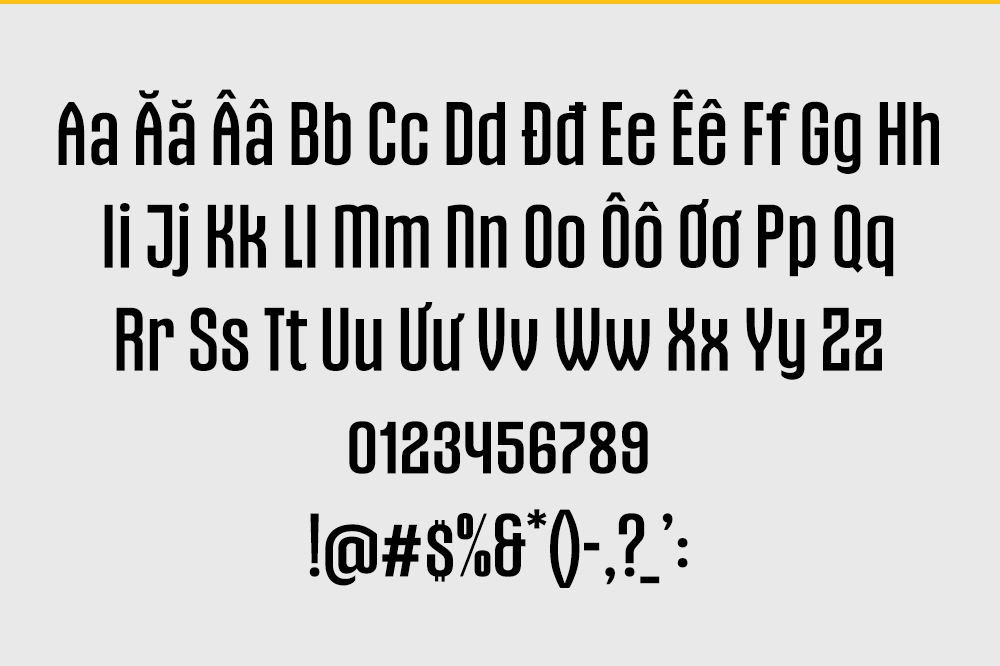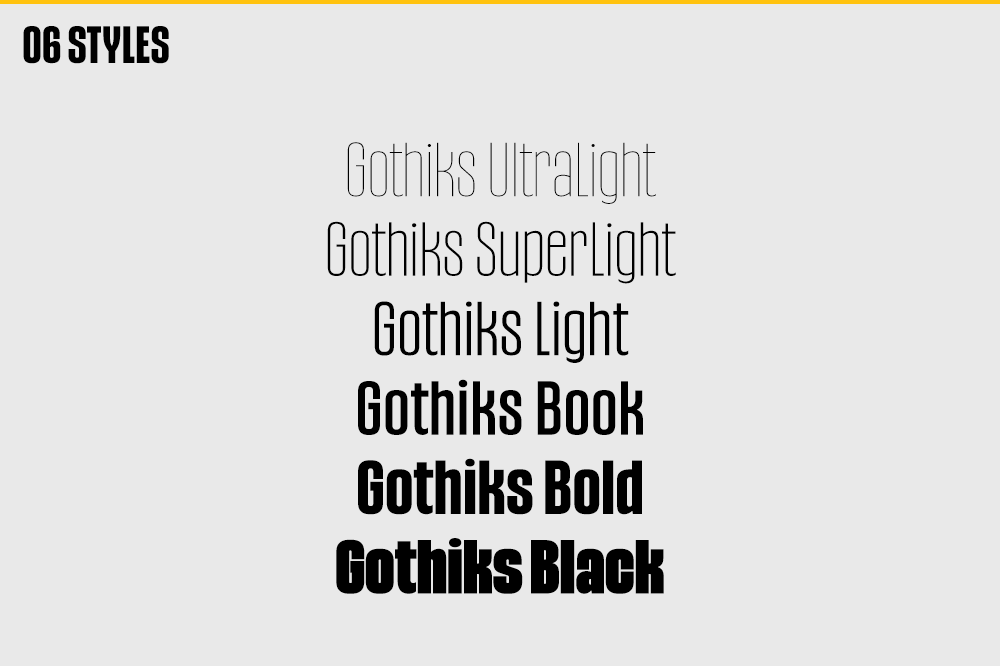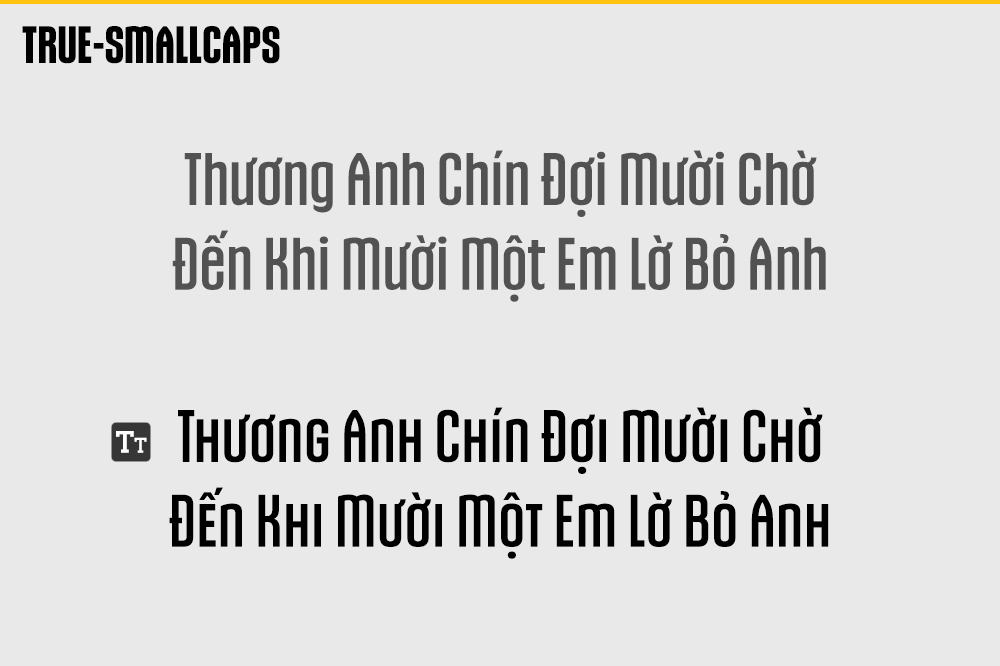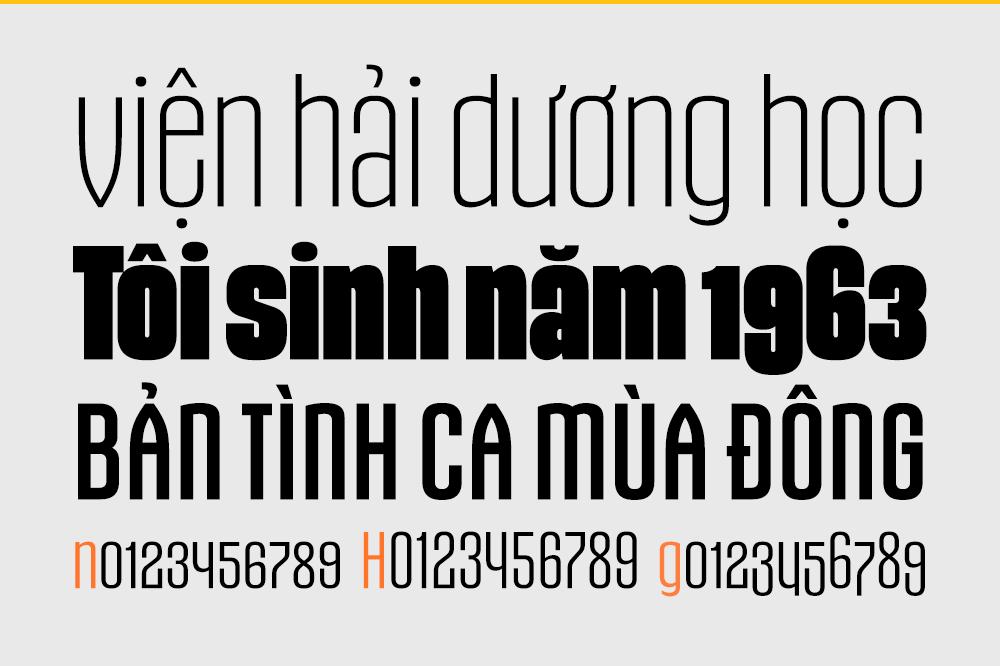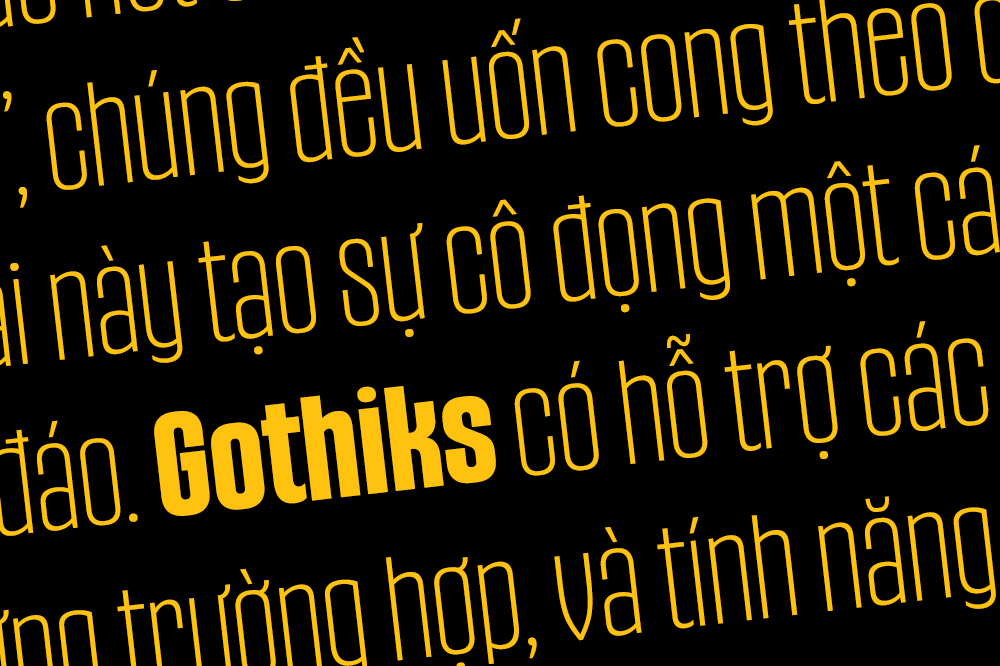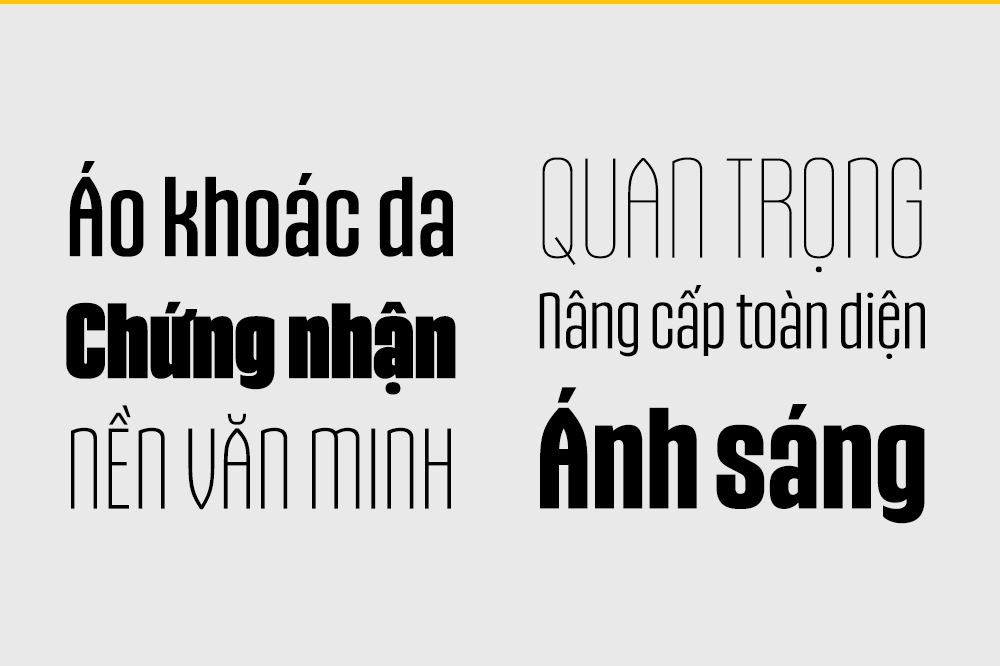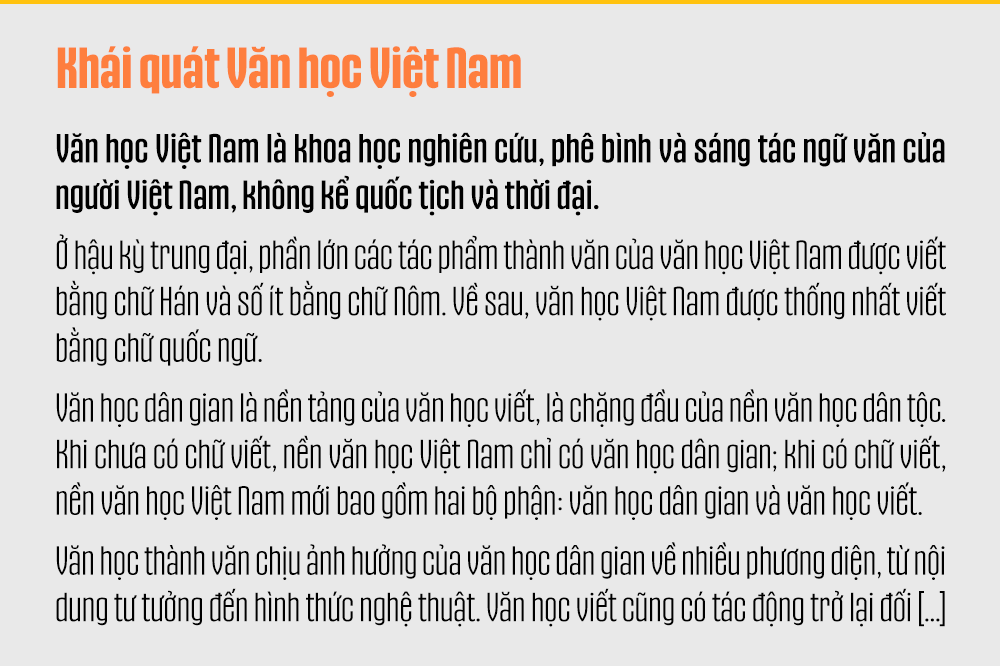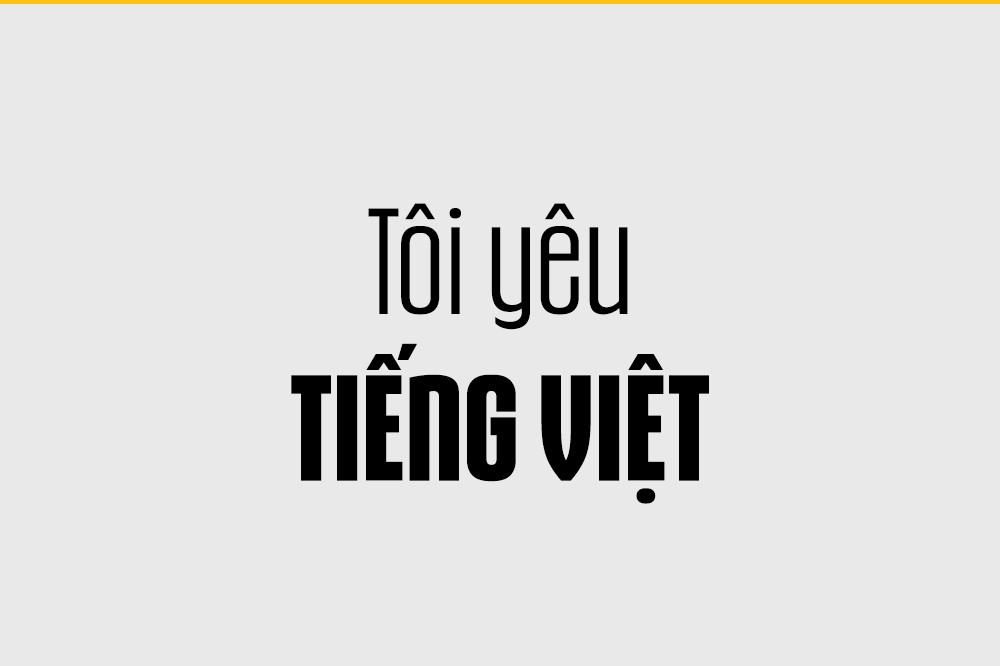
Gothiks is a powerfull 6-weight display sanserif influenced by Texturas. The rithm and verticality of Texturas can be easily identified on the letters with diagonal strokes like A N M K k V v W w X x Y y Z z: here they are all vertical. This kind of morphology was chosen because it accepts condensation in a very natural way, giving to this compact sanserif a very unique personality. The intermediate weights can be used for short texts while extreme weights are excellent for big sizes. It has an extensive character set — with extensive language support — and many OpenType features like fractions, small capitals and different figure sets. Default figures align with lowercase.
Nhà thiết kế: Daniel Sabino
Nhà phát hành: Blackletra